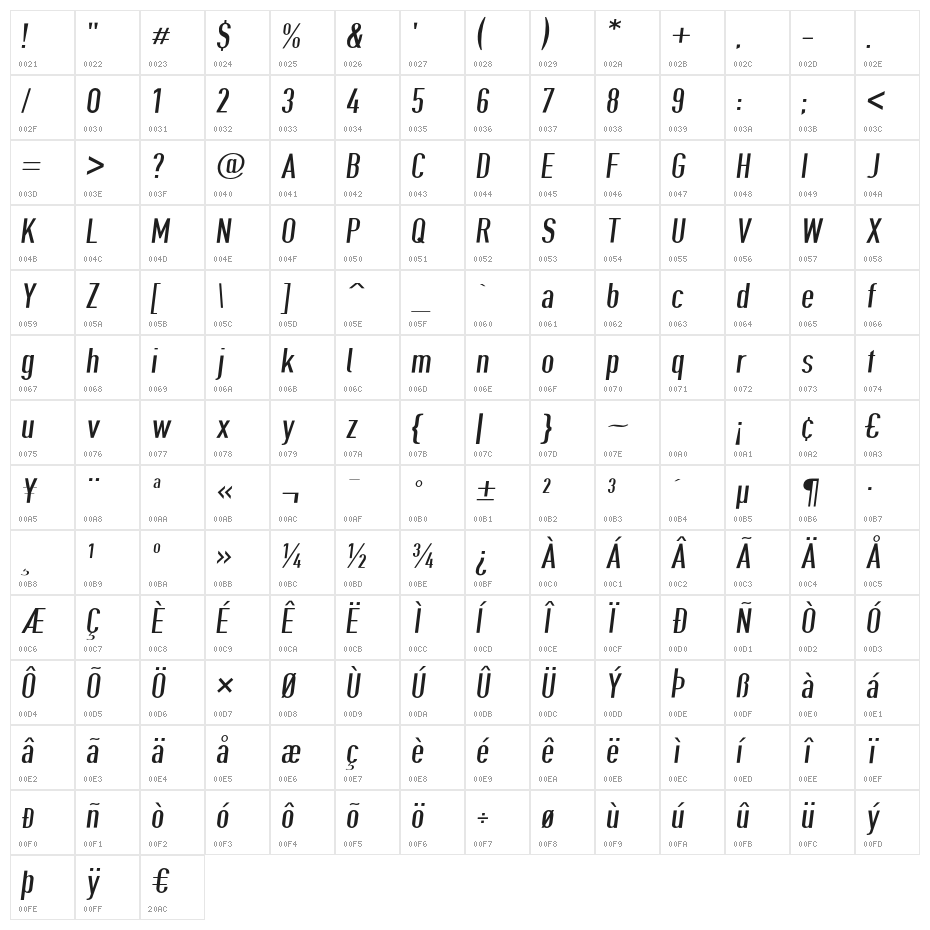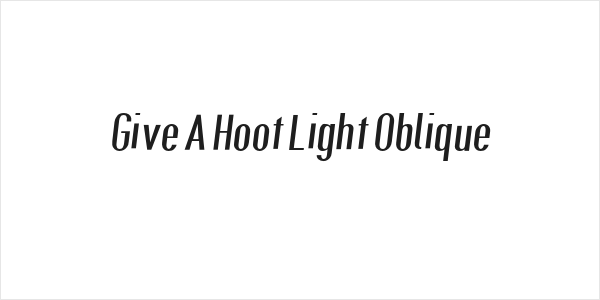
Give A Hoot Light Oblique Font
Give A Hoot Light Oblique Description
This font features a sleek and modern design with an oblique style, giving it a dynamic and forward-leaning appearance. The characters are elongated and slightly condensed, contributing to a sophisticated and elegant look. The strokes are consistent in weight, providing a uniform and clean aesthetic. The font maintains a medium contrast between thick and thin strokes, enhancing readability while retaining a stylish flair. Its design is versatile, making it suitable for various applications where a contemporary and professional tone is desired.
| Use Case | Headlines, Logos, Editorial design |
| Proposed Projects | Ideal for branding, advertising, and editorial design projects that require a modern and professional appearance. |